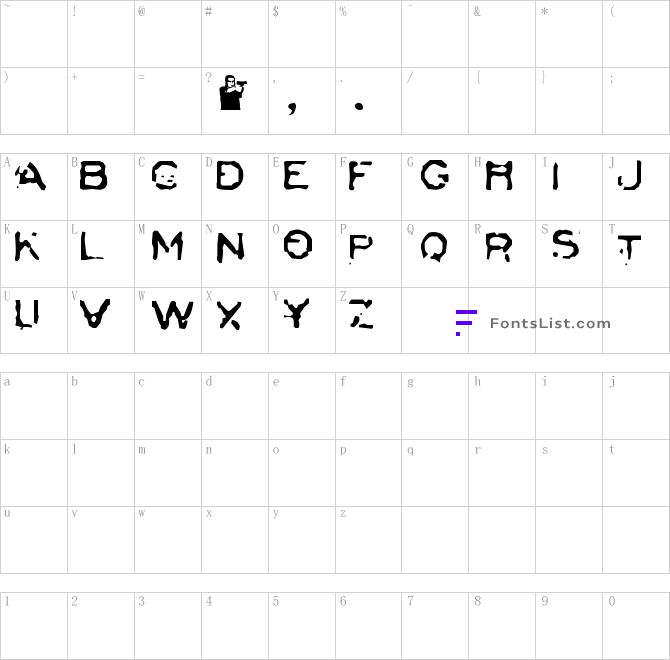
- Font Name:BadCargo
BadCargo.ttf is a very beautiful artistic font, BadCargo.ttf is widely used in the design and printing of various books and pictures,BadCargo.ttf has a strong visual impact,BadCargo.ttf is a commonly used font in newspapers, magazines and books, and is used in posters, e-commerce Poster design, store design, logo design, font design and other fields.BadCargo.